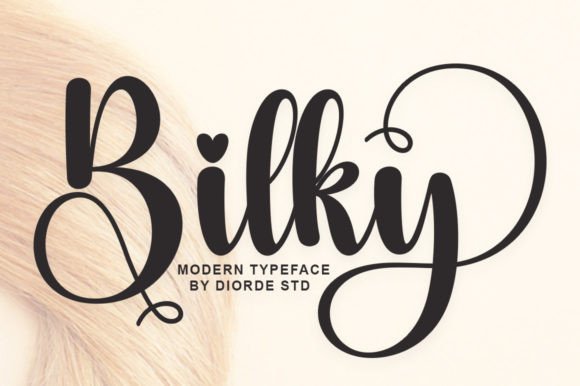
Introducing Bilky Font - A Script Font Family That Will Charm Your Designs!
Step into the world of Bilky Font, a script font family that exudes elegance and charm, leaving a lasting impression on your designs. Its timeless style and radically different strokes make it a perfect choice for a variety of projects, from wedding invitations and thank-you cards to logos and business cards.
With Bilky Font, you'll have the power to transform your designs into pieces of art. Its delicate curves and striking characters add a touch of sophistication and uniqueness to any project. Whether you're a seasoned designer or just starting out, Bilky Font will help you create captivating designs that stand out from the crowd.
Designed by the talented Diorde Studio, Bilky Font is a font family that speaks to the heart. Its elegant lines and beautiful swashes evoke a sense of romance and nostalgia, making it perfect for creating designs that evoke a timeless charm.
But Bilky Font is more than just a pretty face. It's also incredibly versatile, lending itself to a wide range of design projects. Its PUA encoding ensures that you have easy access to all of the glyphs and swashes, giving you the freedom to create truly eye-catching designs.